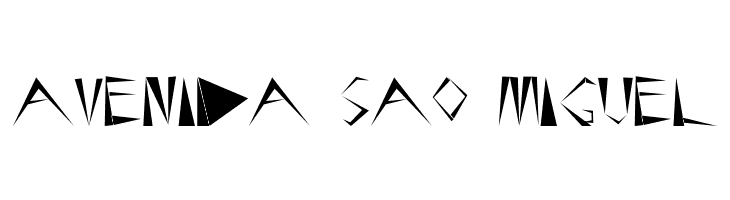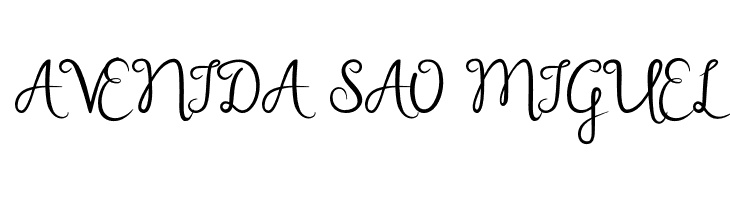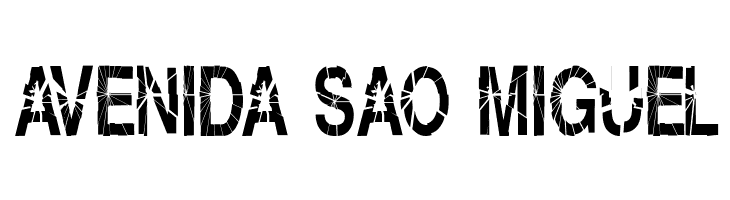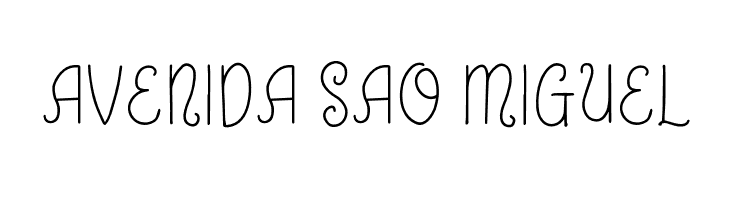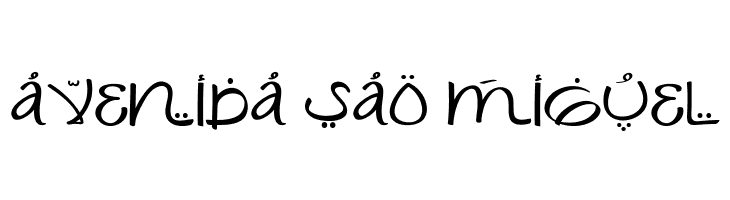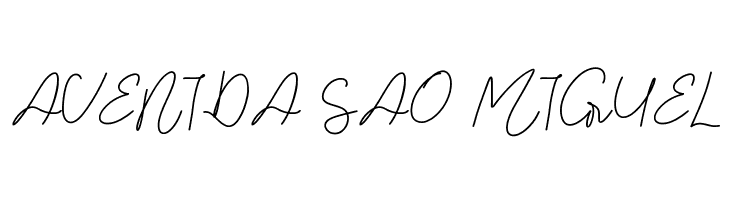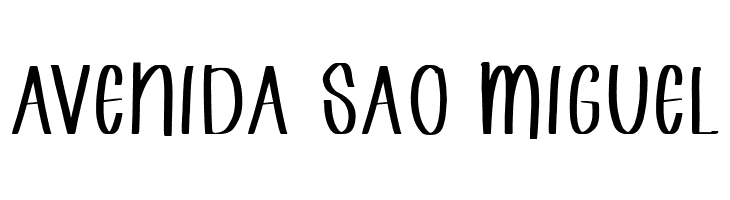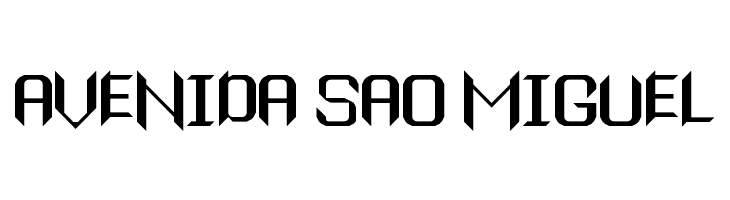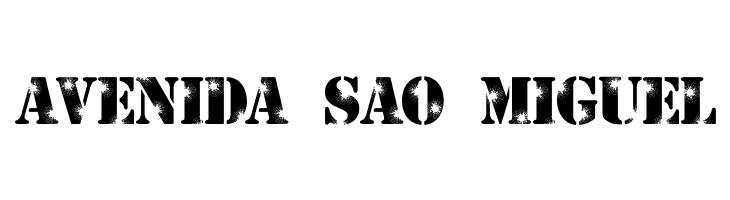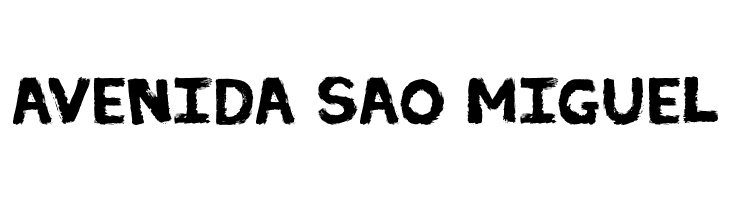
A futuristic, angular font with sharp edges and a bold, modern style.
A modern, sharp-serif font with bold, angular features.
A bold, geometric font with sharp, angular edges and a futuristic feel.
A bold, brush-style font with dynamic, energetic strokes and a rough, expressive texture.
A bold, geometric font with sharp, angular edges and a modern aesthetic.
A bold, angular font with sharp, geometric shapes and high contrast.
A bold, angular font with high contrast and a three-dimensional effect.
A bold, geometric font with sharp angles and a blocky appearance.
A bold, hand-painted style font with an expressive and artistic appearance.
A bold, brush-style font with thick, textured strokes and a dynamic presence.
A fluid, cursive font with a modern, handwritten style.
A bold, modern font with a geometric and striking design.
A dynamic, shattered font with jagged edges and a fragmented appearance.
A bold, shattered glass effect font with a dynamic and decorative style.
A bold, distressed font with a shattered effect, perfect for edgy designs.
A bold, shattered glass effect font with dynamic, fragmented characters.
A playful and whimsical font with unique accents and a handwritten style.
A playful, handwritten font with a whimsical and dynamic style.
A playful, whimsical font with tall, narrow letters and gentle curves.
A dynamic, handwritten-style font with elegant curves and expressive strokes.